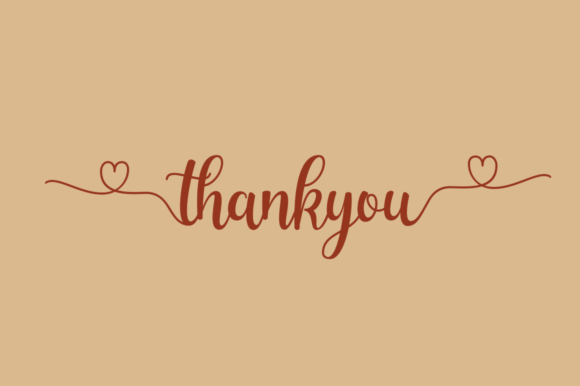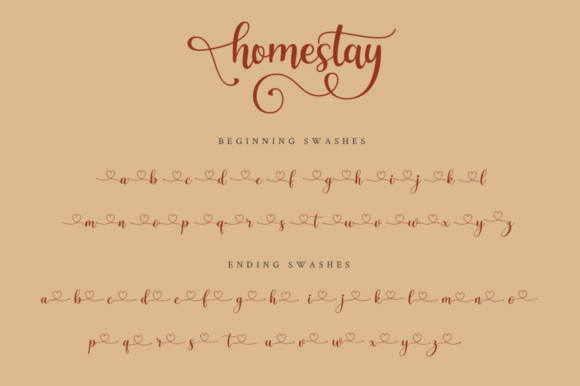
Homestay Font
About Homestay Font
Homestay is a romantic and naturally flowing script font. This font is PUA encoded which means you can access all of the glyphs and swashes with ease!